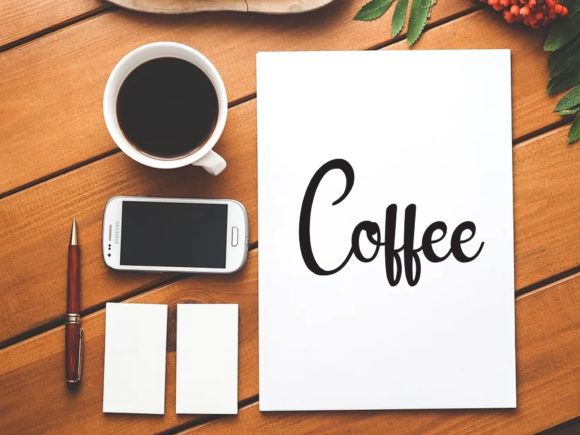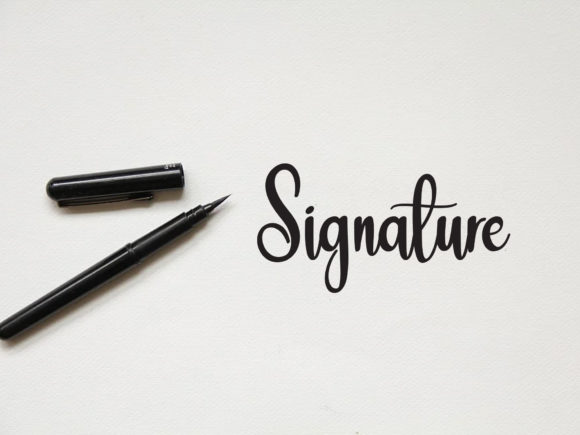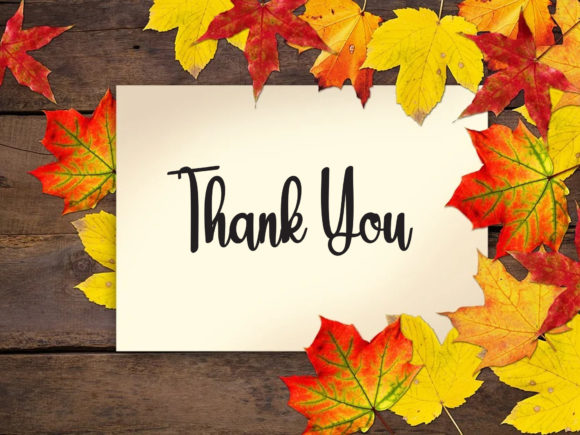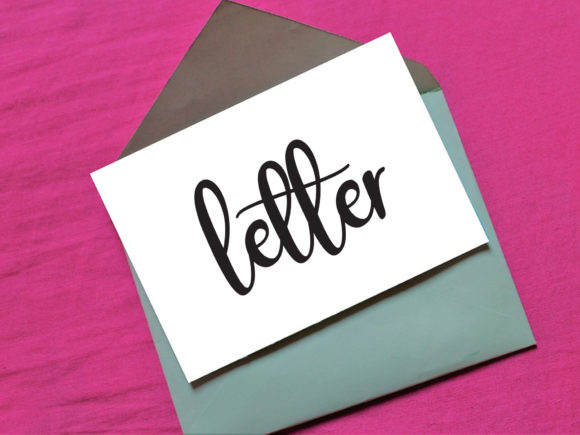
Sunday Font
About Sunday Font
Sunday is a lovely handwritten font that is made with great care in order to produce the expected outcomes. This font can be used for writing quotes, titles, brand names, book covers, posters, or just any creation that requires a touch of elegance.